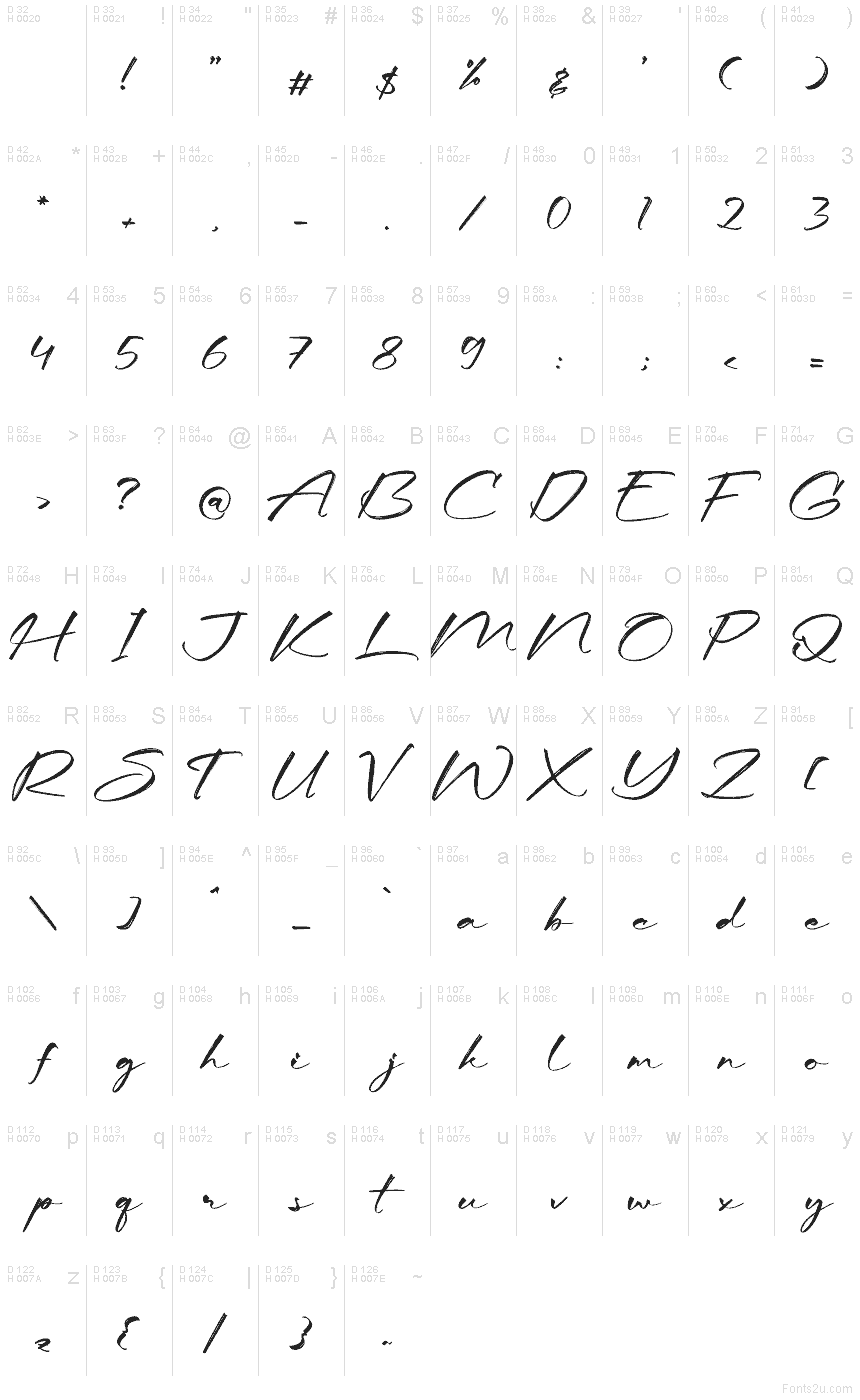
Harttley Suttonline
Harttley Suttonline font is an expanded handwritten signature font designed by Letterena Studios. An infusion of elegance and modernity, it features fluid strokes and an understated contemporary aesthetic. The typeface is impressionistic at its core, showcasing beauty through expressive yet elegant appearance associated with smooth edges and rounded terminals.